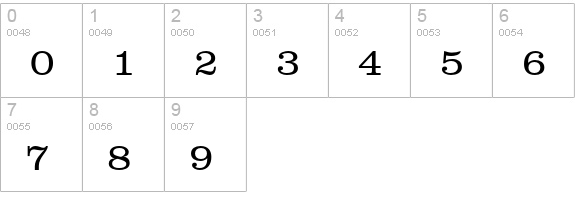
Clarendon Light is a refined, elegant variant in the Clarendon typeface family \xE2\x80\x94 well suited to elegant body text, refined sub-headings, and luxury branding.
Clarendon Light is a sophisticated and elegant font that exudes a timeless charm. Its clean lines and well-balanced proportions make it perfect for a wide range of design projects, from branding to editorial layouts. The light weight of Clarendon Light adds a touch of delicacy and refinement to any text, enhancing readability and visual appeal. This versatile font is ideal for creating modern and classic designs alike, thanks to its versatility and understated elegance. Whether you're working on a logo, website, or print materials, Clarendon Light will bring a touch of sophistication to your projects. Best of all, Clarendon Light is available for free download at FontsMarket.com. This means you can easily access and use this beautiful font in your projects without any cost. Don't miss out on the opportunity to enhance your designs with the timeless beauty of Clarendon Light.